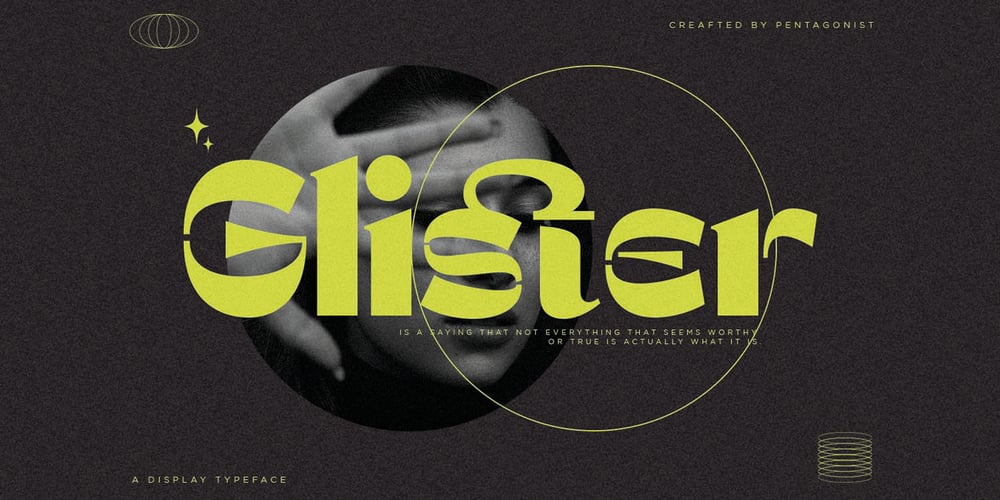
Glister PS
Glister PS font
Glister PS Font Family was designed by Burhan Adiatma and published by pentagonistudio. Glister PS contains 1 styles and family package options. Glister Is An Stylish Display Character Inspired By Cheek Style.SOFTWARE REQUIREMENTS :Fonts and alternate : No special software required they may be used in any basic program /website apps that allows standard fonts That’s it folks! You can go ahead and get cracking :)Follow My Shop For Upcoming Updates Including Additional Glyphs And Language Support. And Please Message Me If You Want Your Language Included or If There Are Any Features or Glyph Requests, Feel Free to Send me A Message. Have a Good Day !